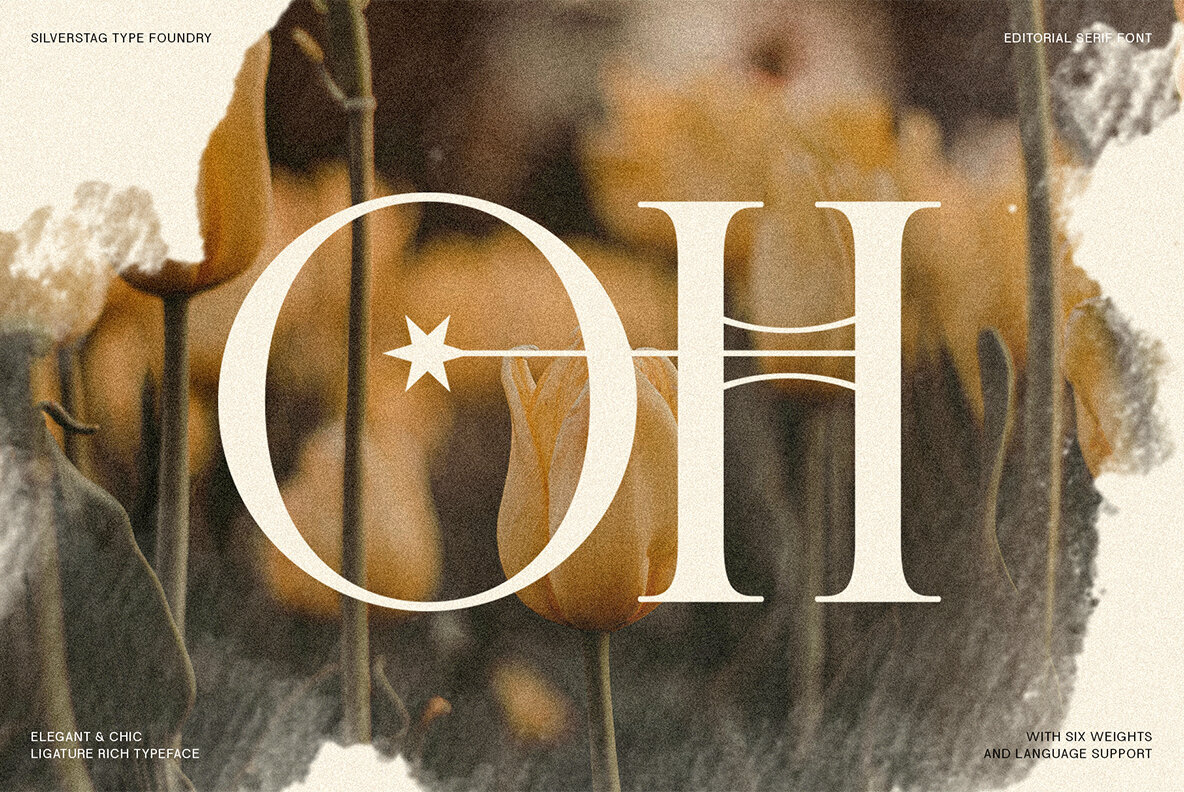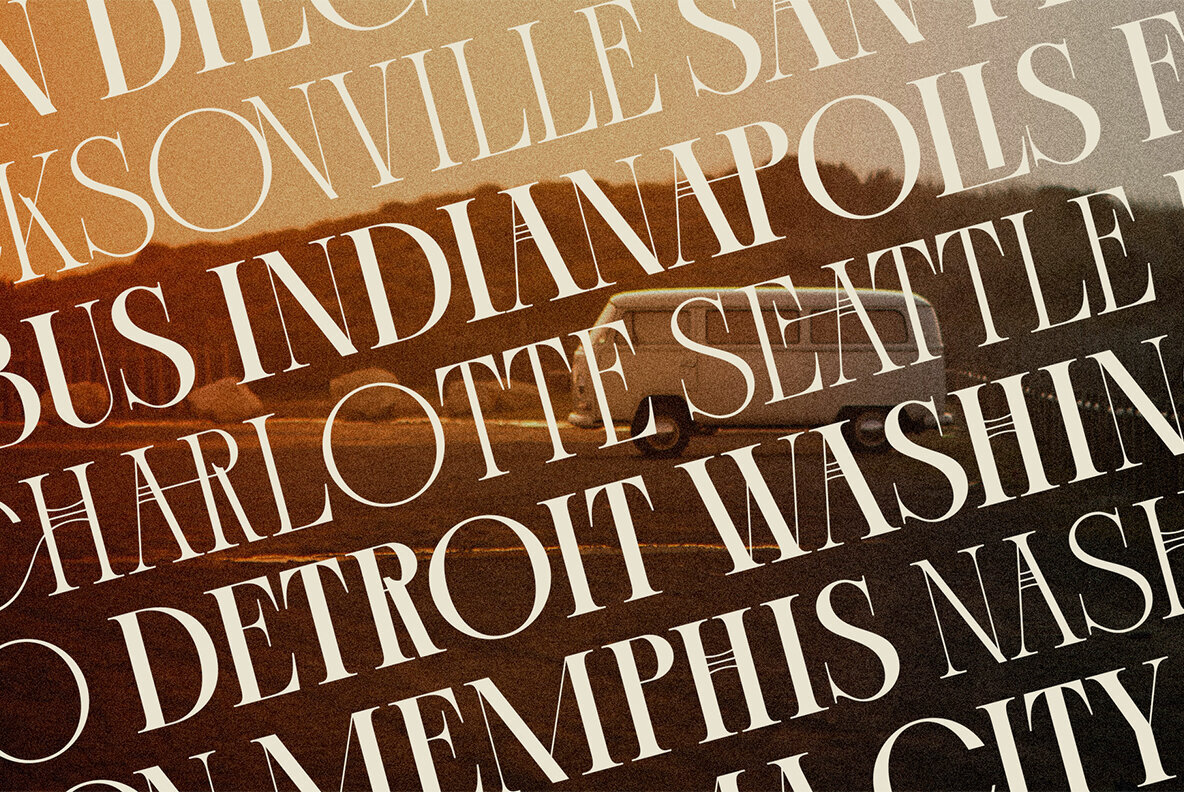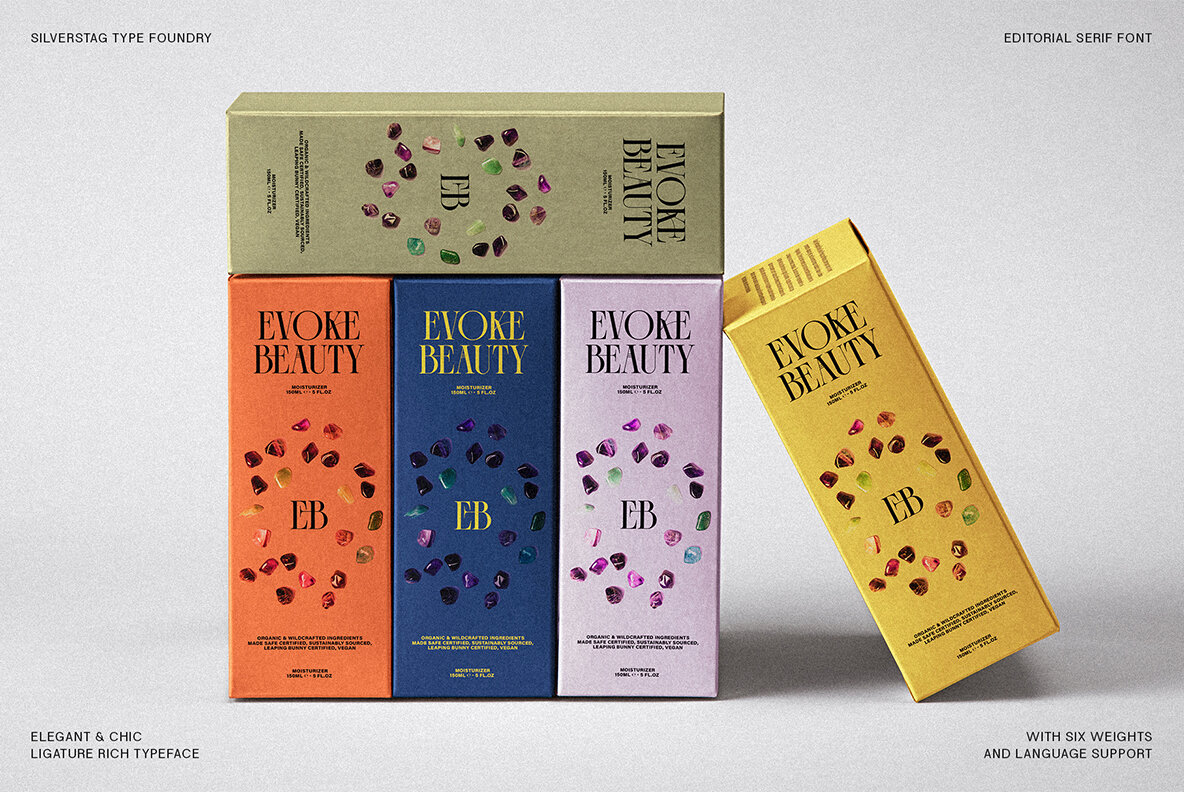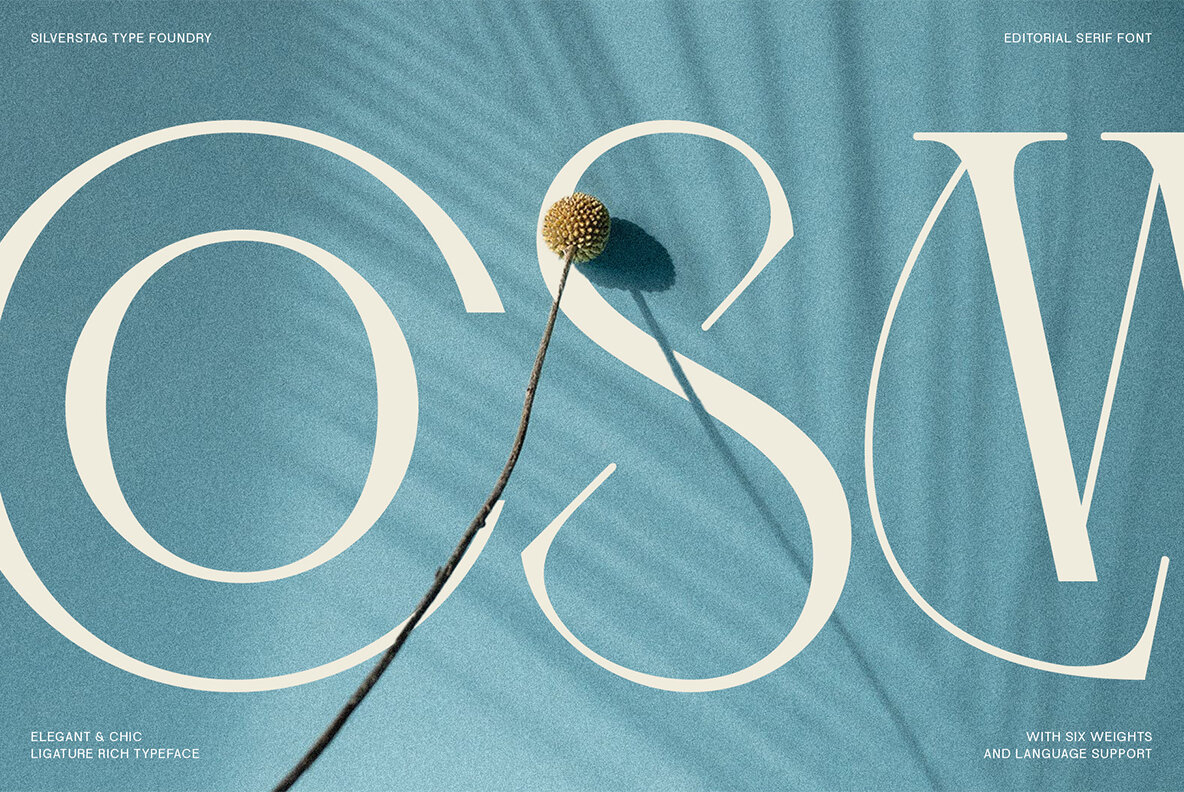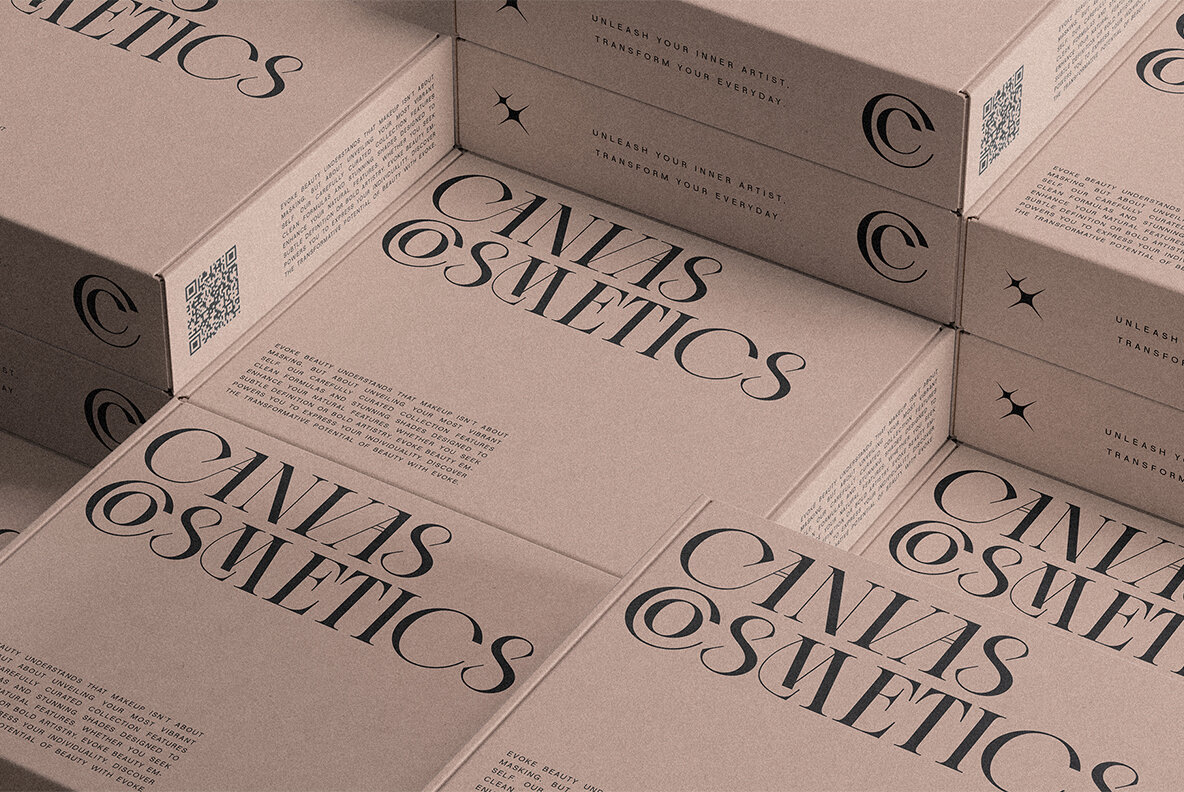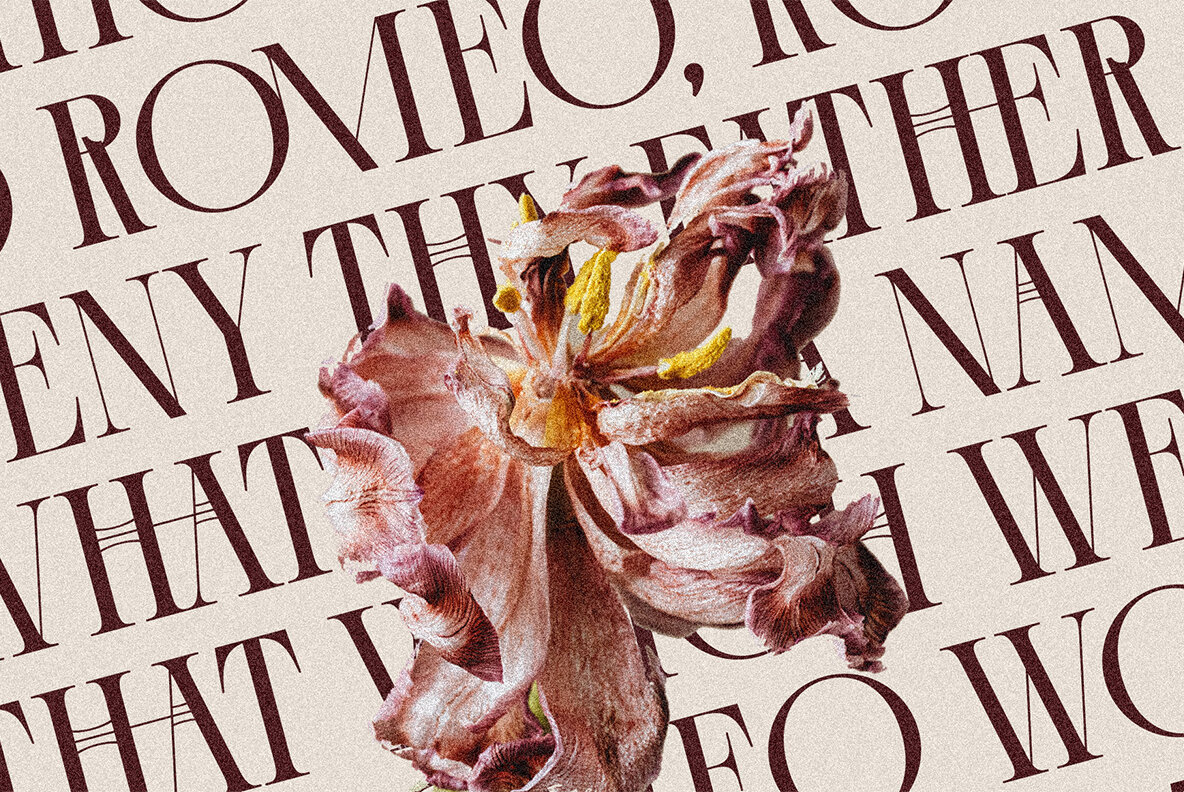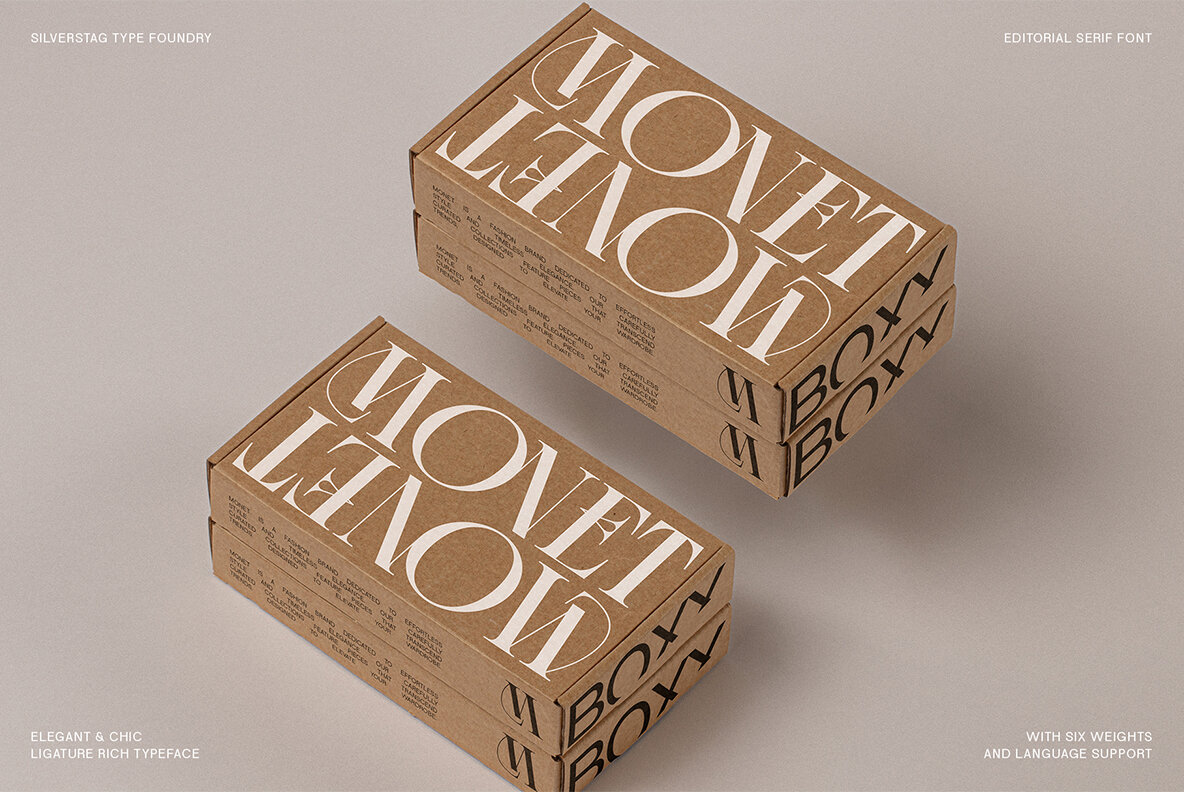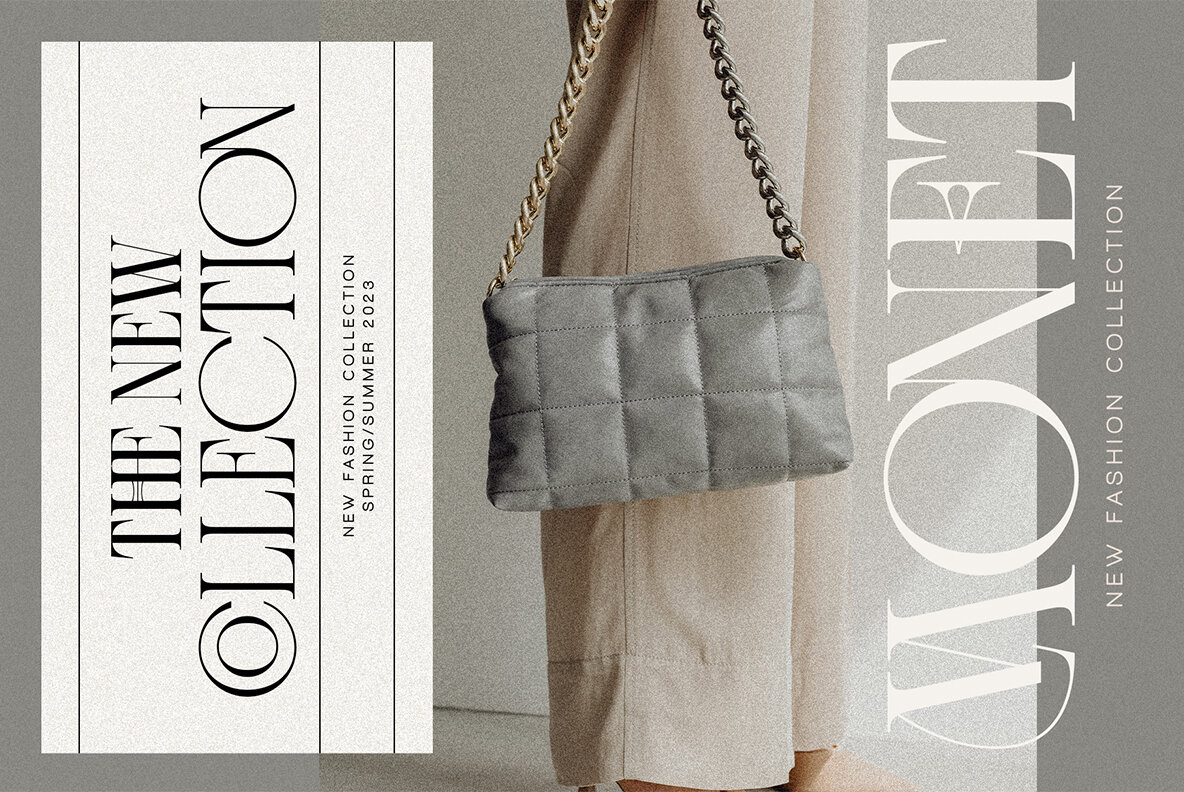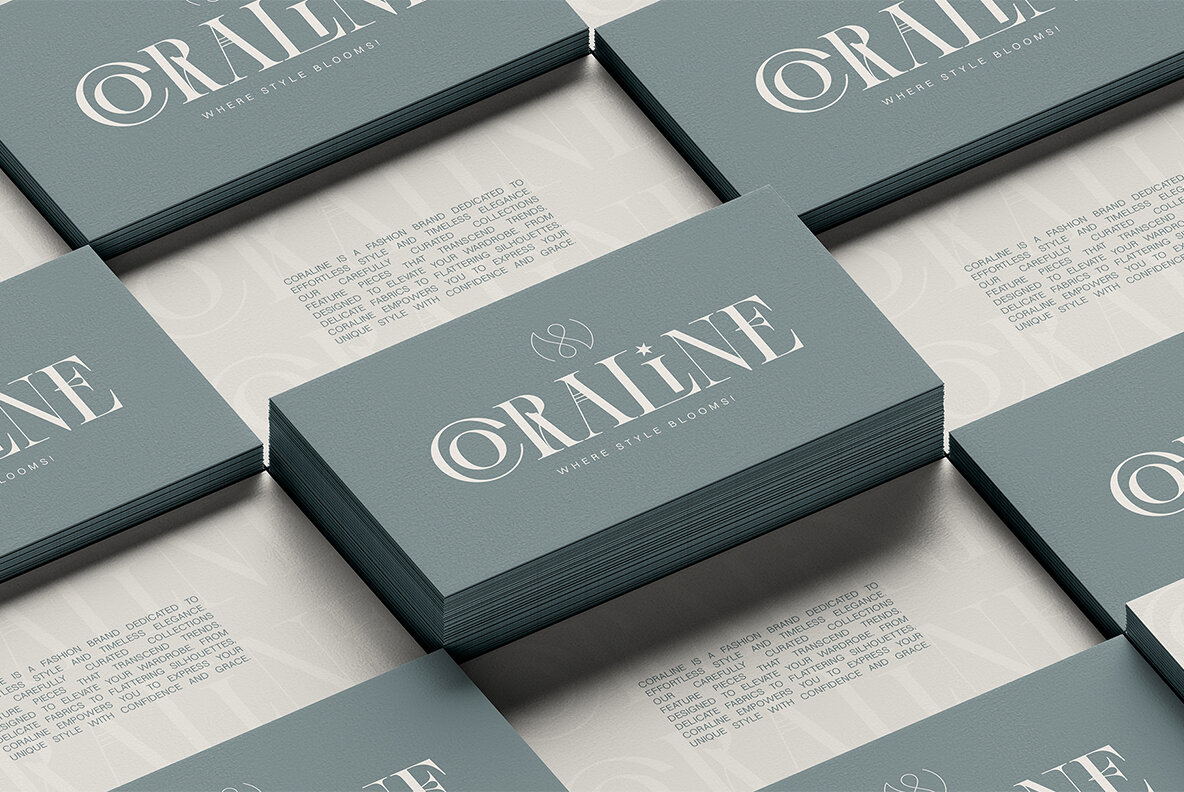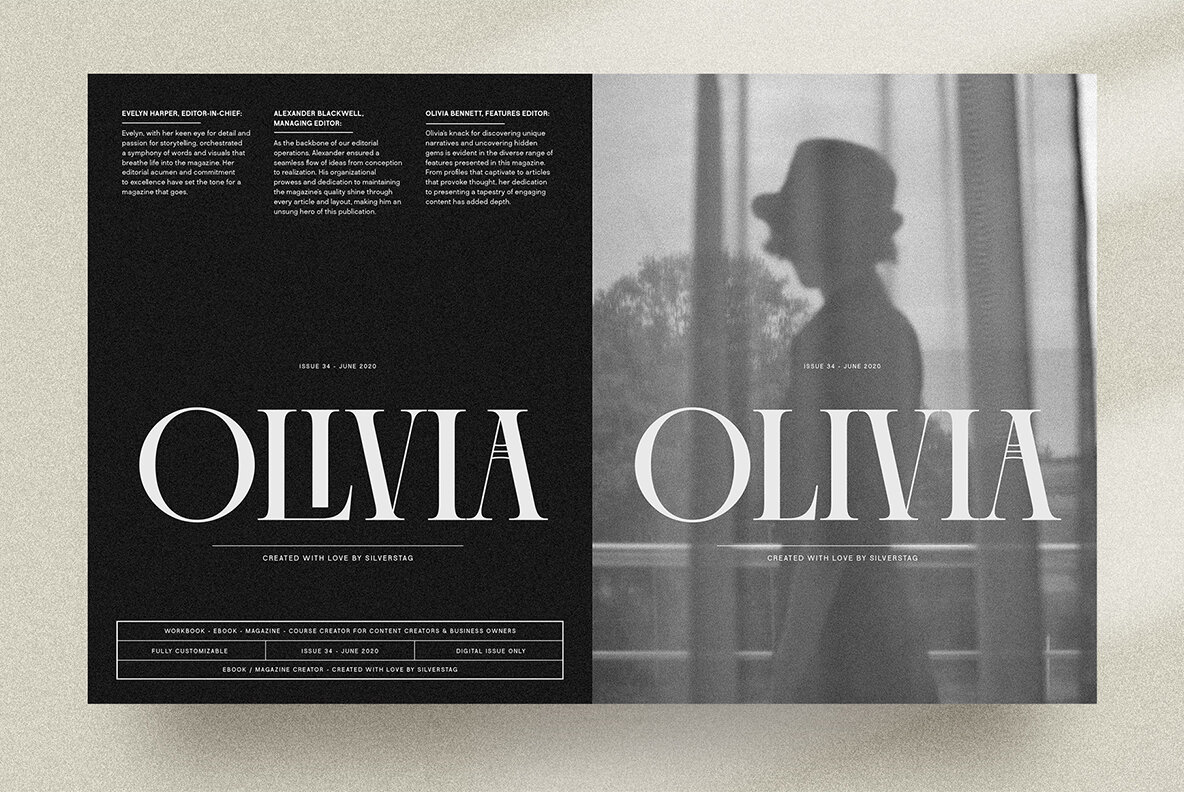
Cosmic Solace Typeface Font
Experience the full spectrum of elegance with the highly anticipated expansion of Cosmic Solace. This beloved serif font, adorned with over 130 chic ligatures, returns with a complete family of six weights, from the delicate whisper of Regular to the powerful command of Black. Its extensive language support for over 90 languages ensures your designs resonate across borders. This comprehensive upgrade offers endless possibilities for designers seeking a touch of elegance, expressive ligatures, and global versatility.Cosmic Solace: The Expanded Family Arrives!
Where Cosmic Solace Family Shines: